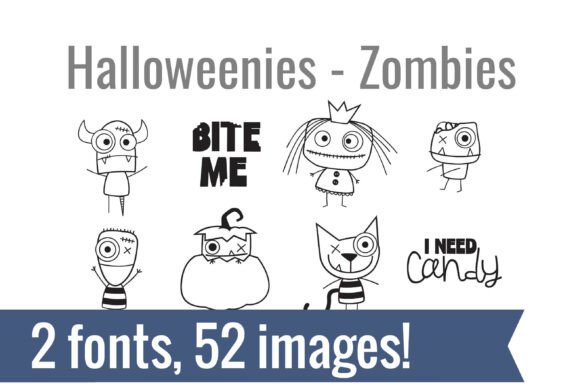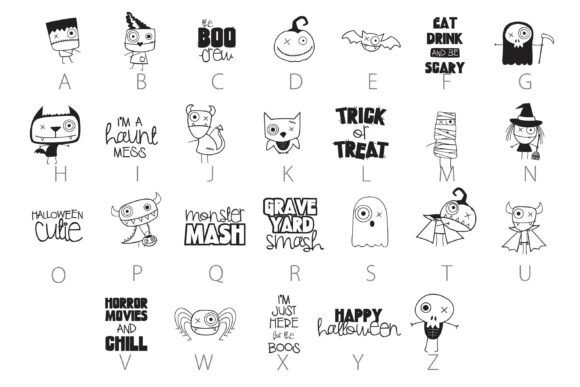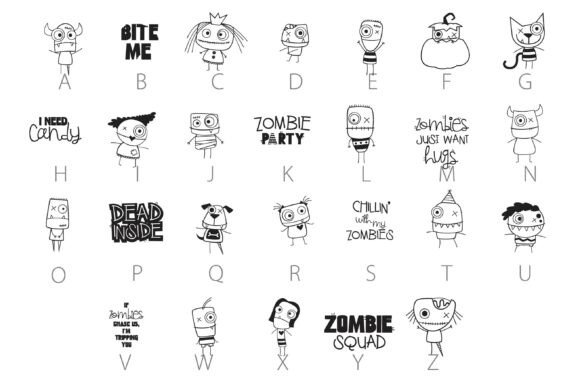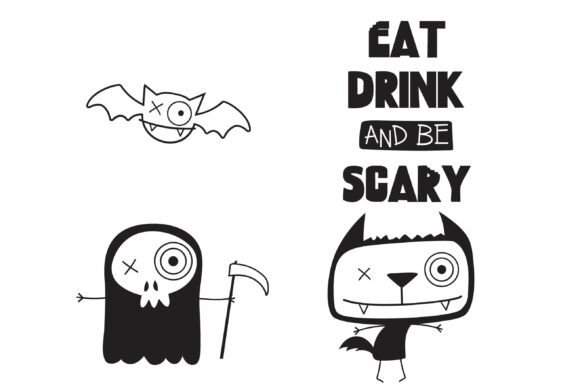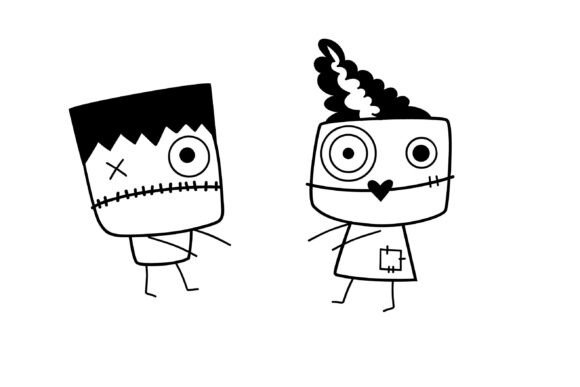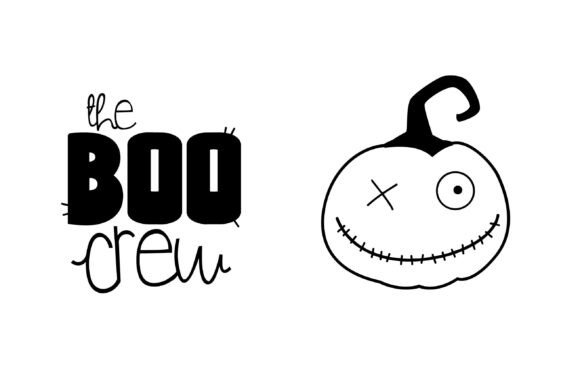
Unlock Endless Creativity with Halloweenies Font
Are you tired of spending hours searching for the perfect icons and graphics for your Halloween-themed designs? Look no further! Introducing Halloweenies Font, a bundle of two perfectly coordinated dingbat fonts featuring the cutest stick figure Halloween characters and elements. With these fonts, you can unlock endless creativity and produce stunning designs for various projects, from holiday cards to vinyl cutting and paper crafts.
What are Dingbat Fonts?
For those who may be new to dingbat fonts, let’s take a quick look at what they are. Dingbat fonts are special fonts that contain graphical symbols, icons, and characters instead of traditional letters. They are designed to provide a quick and easy way to add graphics to your designs without having to search for and insert individual images. With Halloweenies Font, you get not one but two dingbat fonts, each packed with dozens of cohesive, scalable designs that can be used to create a wide range of Halloween-themed projects.
The Benefits of Halloweenies Font
So, what makes Halloweenies Font so special? Here are just a few benefits of using these amazing fonts:
- Save Time: No more spending hours searching for the perfect icons and graphics. With Halloweenies Font, you have instant access to dozens of cohesive designs directly from your cutting or design software.
- High-Quality Graphics: Our fonts feature high-quality graphics that are designed to work beautifully together. This means you can create stunning designs that are cohesive and visually appealing.
- Versatile: Halloweenies Font can be used for a wide range of projects, including vinyl cutting, paper crafts, planners, holiday cards, and more.
What Can You Create with Halloweenies Font?
The possibilities are endless with Halloweenies Font! Here are a few ideas to get you started:
- Halloween Cards and Invitations: Create charming seasonal cards and invitations with intricate frames and designs.
- Vinyl Cutting Projects: Use Halloweenies Font to create custom vinyl cutting projects, such as decals, signs, and iron-on designs.
- Paper Crafts: Add a personal touch to your paper crafts, such as scrapbook pages, gift tags, and origami, with our adorable Halloween-themed designs.
- Planners and Journals: Create custom planners and journals with Halloween-themed headers, footers, and decorations.
Why Choose Halloweenies Font?
With so many font options available, why choose Halloweenies Font? Here are a few reasons:
- Unique and Exclusive Designs: Our fonts feature unique and exclusive designs that you won’t find anywhere else.
Get Ready to Unlock Endless Creativity!
Halloweenies Font is the perfect addition to any designer’s or crafter’s toolkit. With its two perfectly coordinated dingbat fonts, you can unlock endless creativity and produce stunning designs for various projects. Say goodbye to tedious searching and hello to instant access to dozens of cohesive, scalable designs. Get Halloweenies Font today and start creating your own amazing Halloween-themed projects!